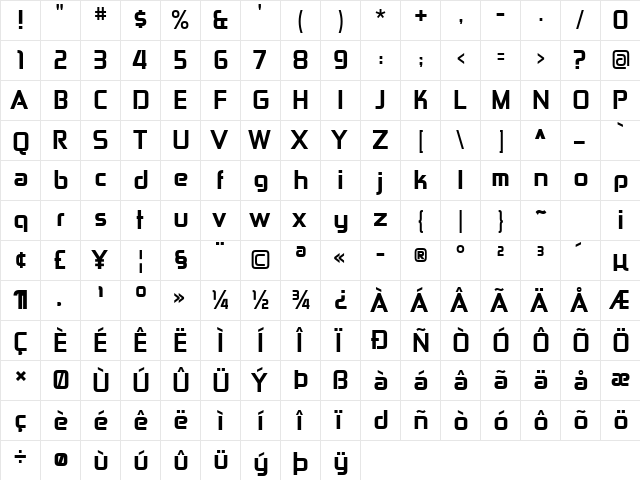
Zekton Hv Regular Font Preview
Zekton Hv Regular
Zekton Hv Regular Font Details
Design Context for Zekton Hv Typeface
Zekton Hv takes a measured approach to typography — its balanced proportions and neutral character make it a reliable workhorse for both digital and print work.